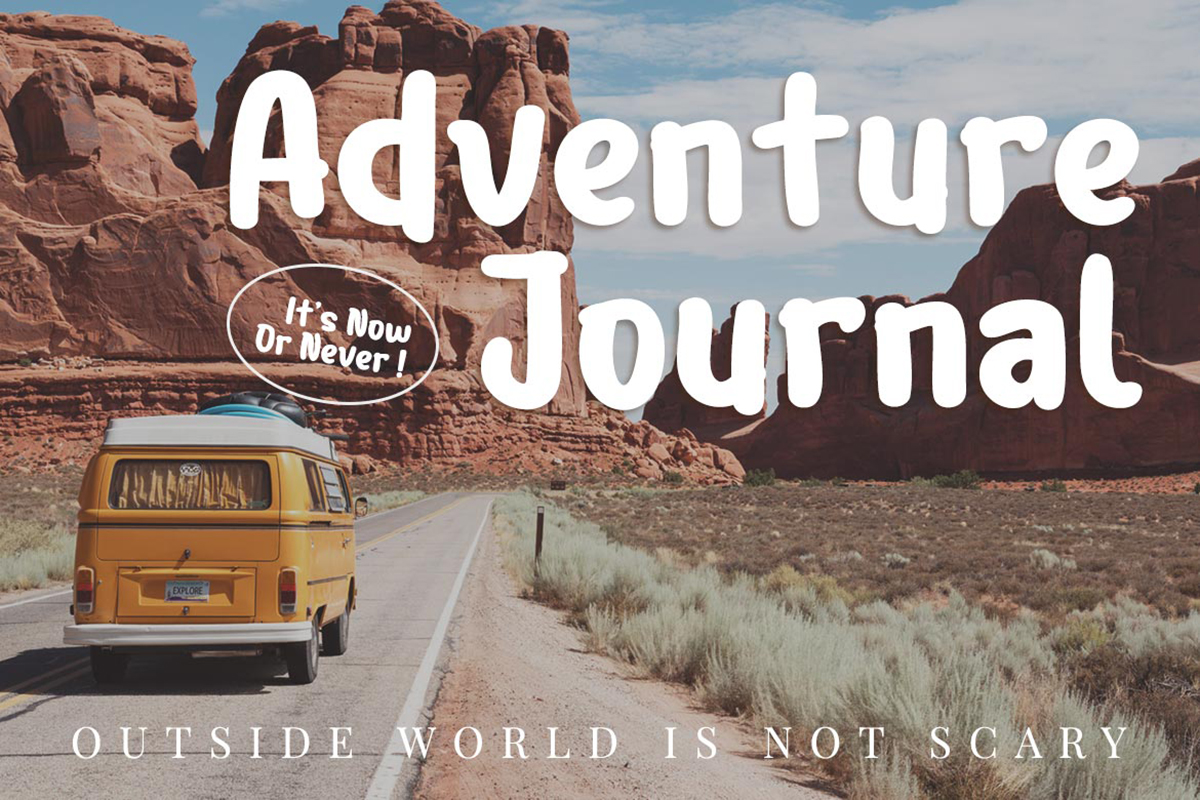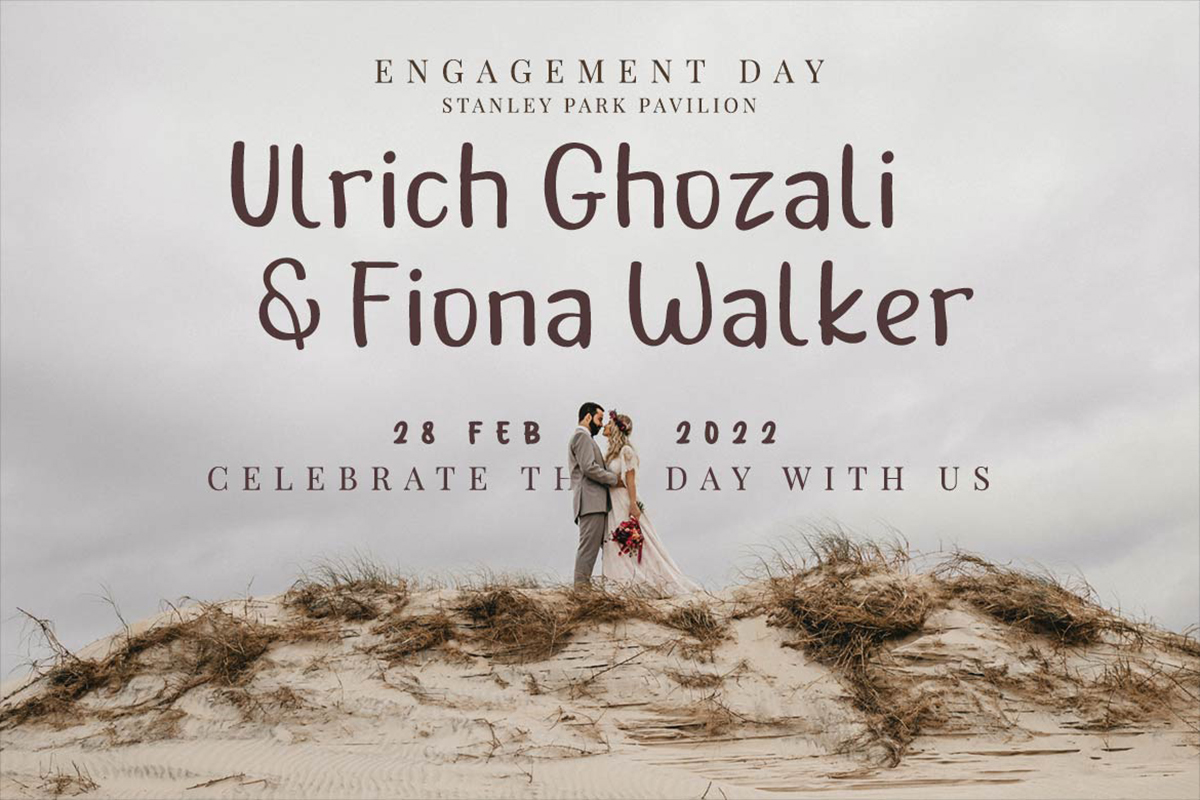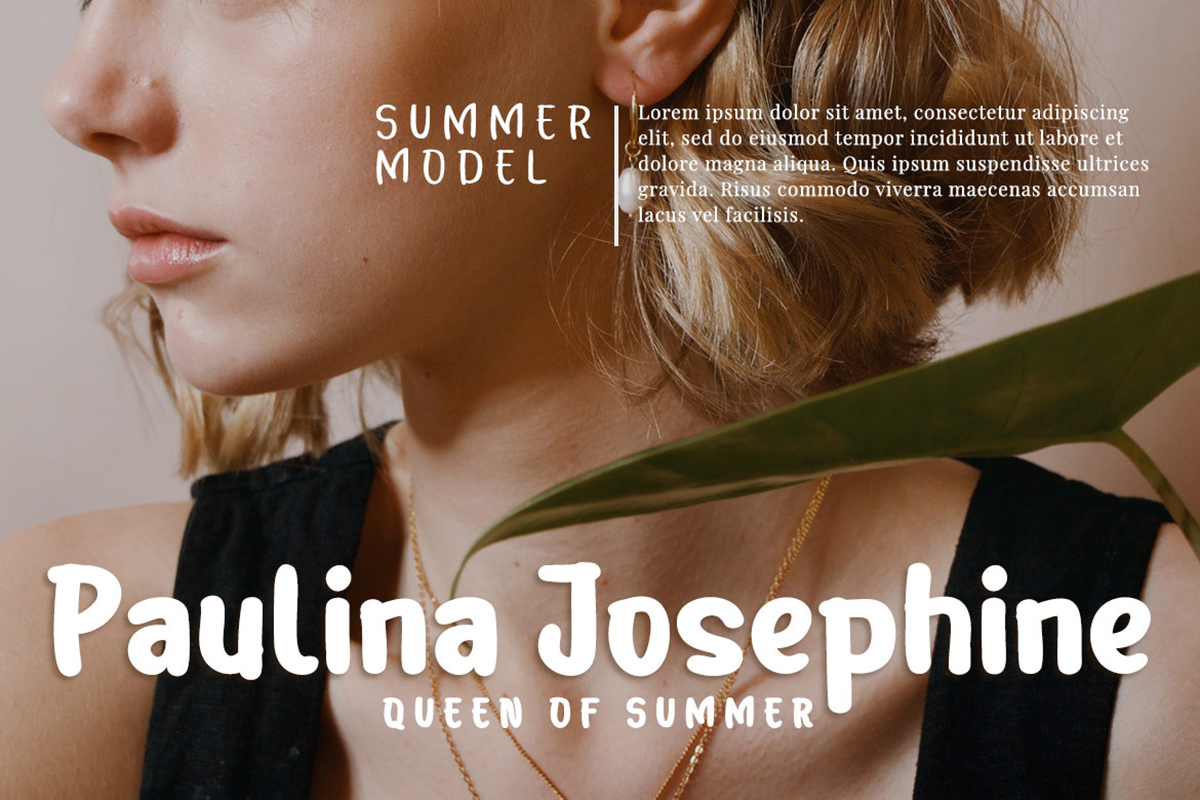
Benah Free Font
Benah Free Font is a trendy and chic display font that effortlessly elevates any topic it graces. This font is a valuable addition to your font library, offering the potential to enhance and enrich every creation you embark on. Embrace the versatility of “Benah” and witness how it becomes an invaluable asset to your design endeavors. This free typeface was designed by a talented Twin Letter. If you like it don’t forget to check out the full version.